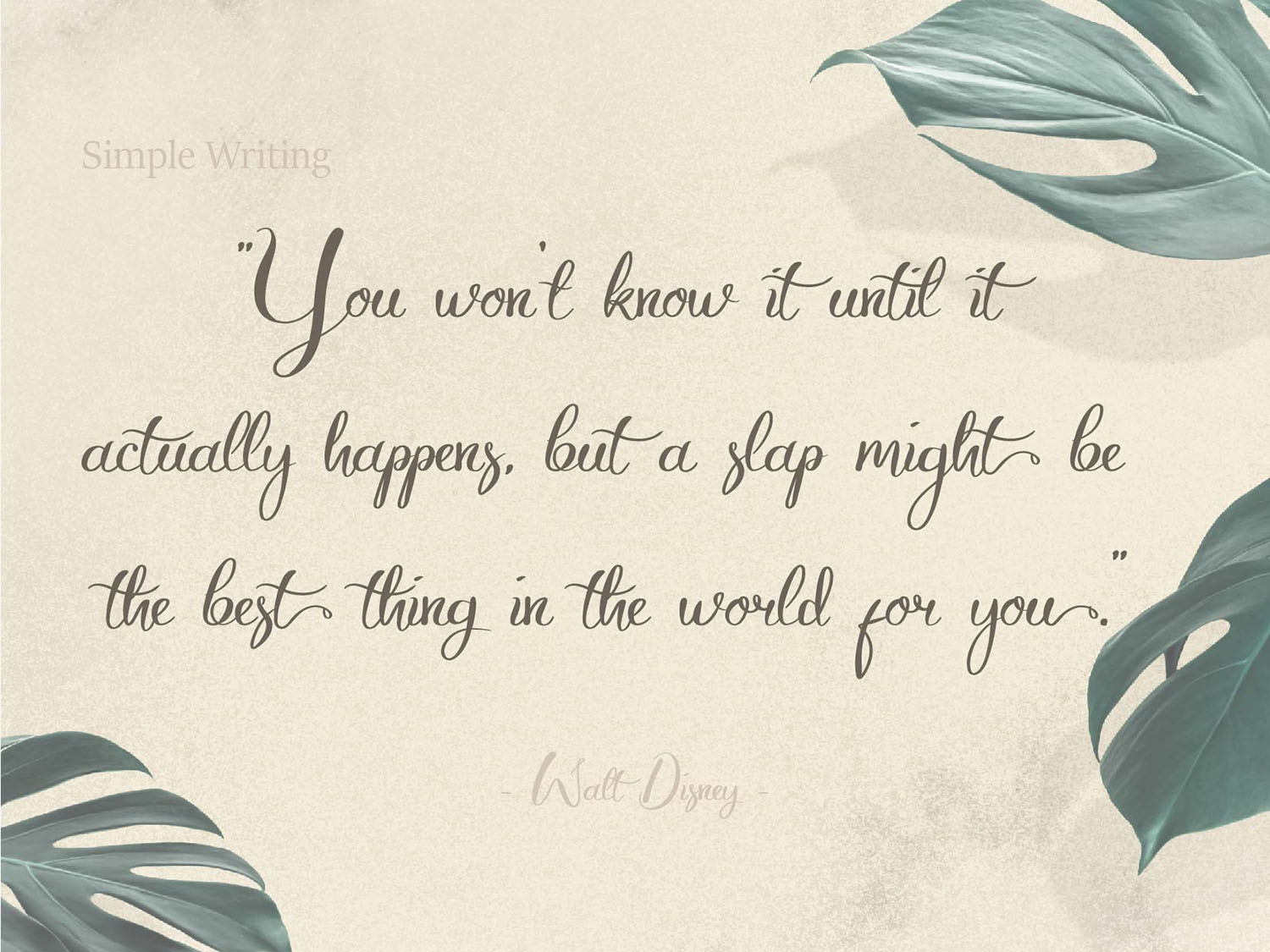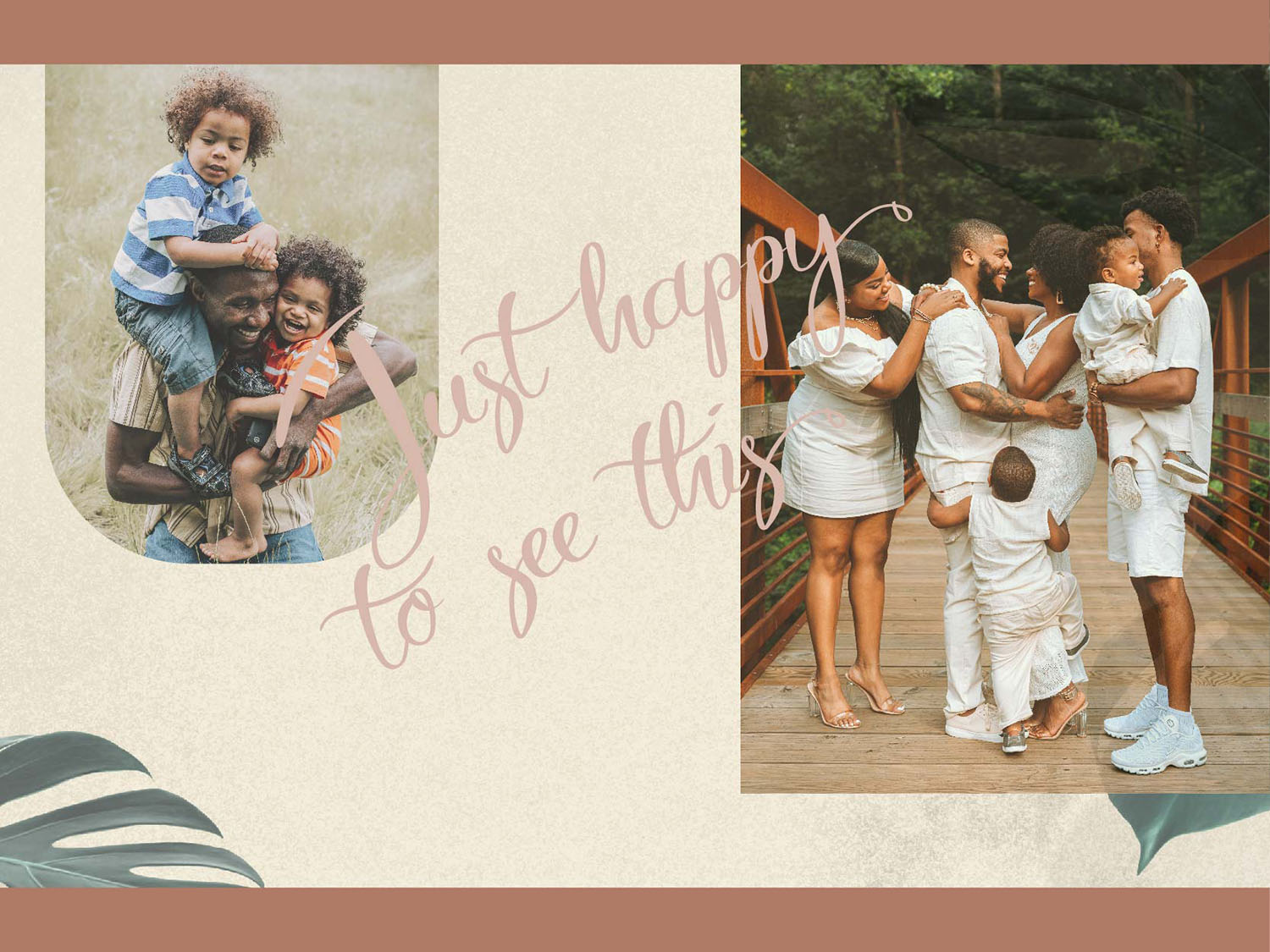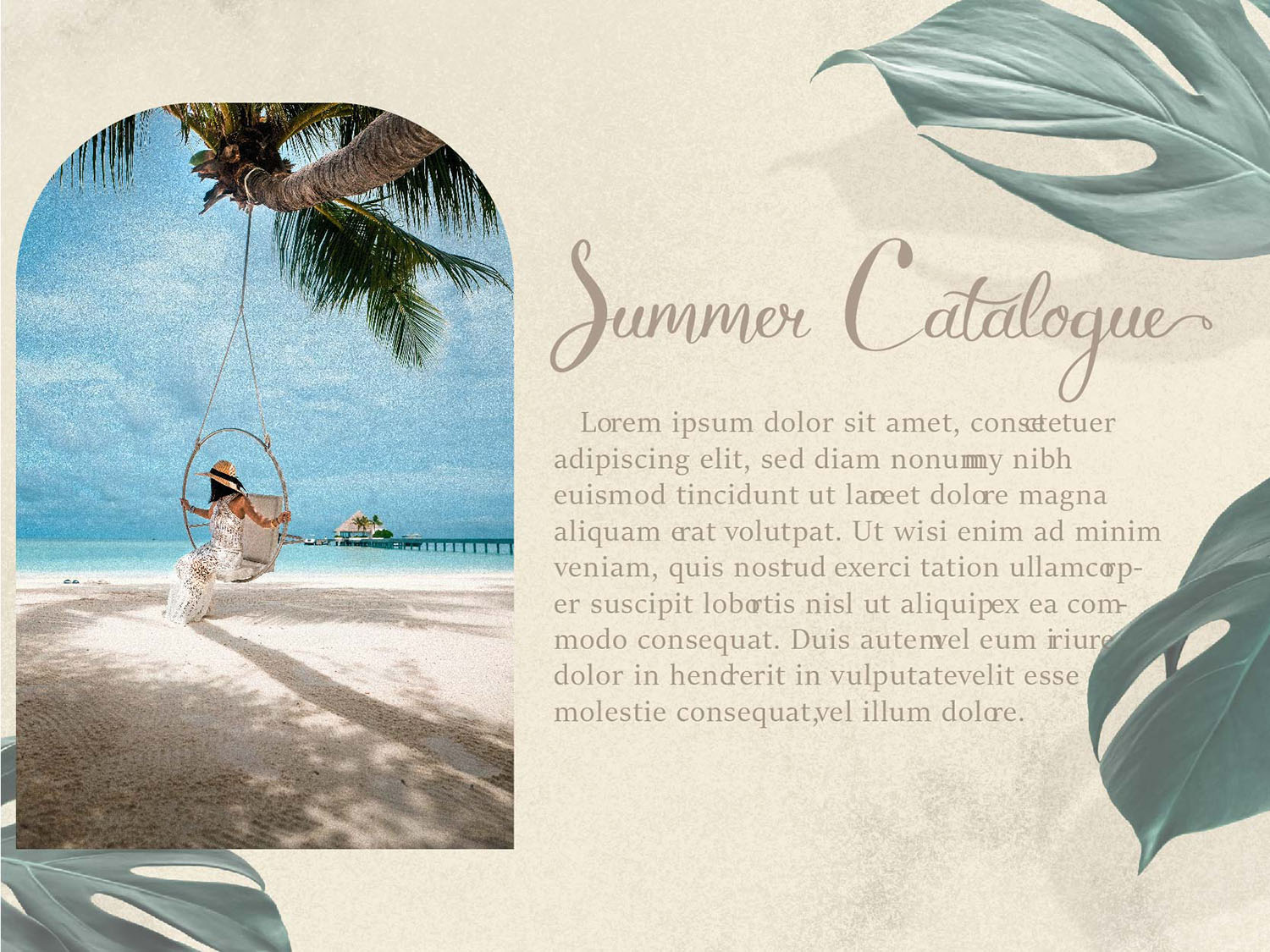
Butterun Minni Free Font
Introducing Butterun Minni Free Font, a delightful script font showcasing playful and charming characters that dance gracefully along the baseline. Elevate your creative concepts by incorporating this font and experience how it effortlessly makes them shine. This free typeface was designed by a talented Johan Gumilang. If you like it don’t forget to check out the full version.